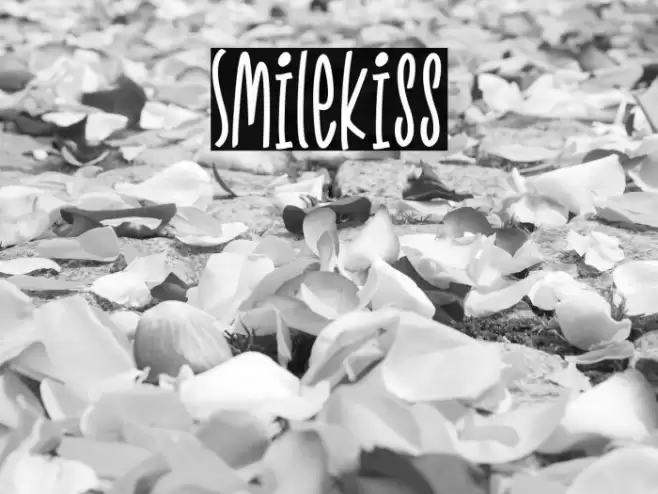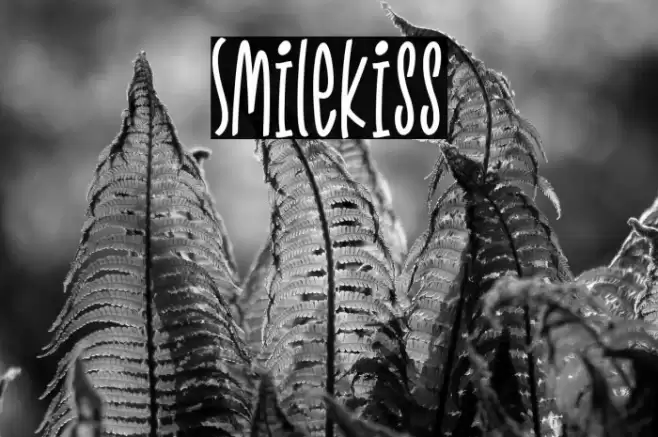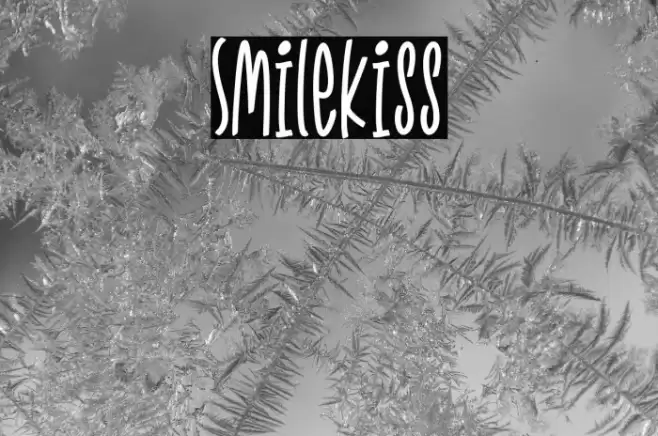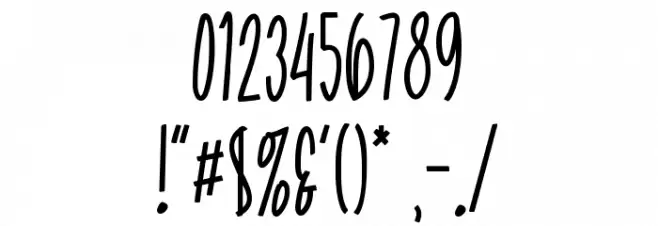
Smilekiss Font
Smilekiss Description
This font features a playful and whimsical design, characterized by its tall, narrow letters with a slight slant. The strokes are smooth and rounded, giving it a friendly and approachable feel. The uppercase and lowercase letters maintain a consistent style, with the lowercase letters slightly smaller and more compact. The numbers and special characters follow the same playful aesthetic, making the font suitable for informal and creative projects. Its unique style makes it stand out, while still being legible and versatile.
A playful, tall, and narrow font with smooth, rounded strokes from Regular fonts.
- Proposed Projects: Ideal for children's books, greeting cards, playful branding, and creative posters.
- Overall Style: Playful
- Use Case: Headlines, Logos, Informal Text